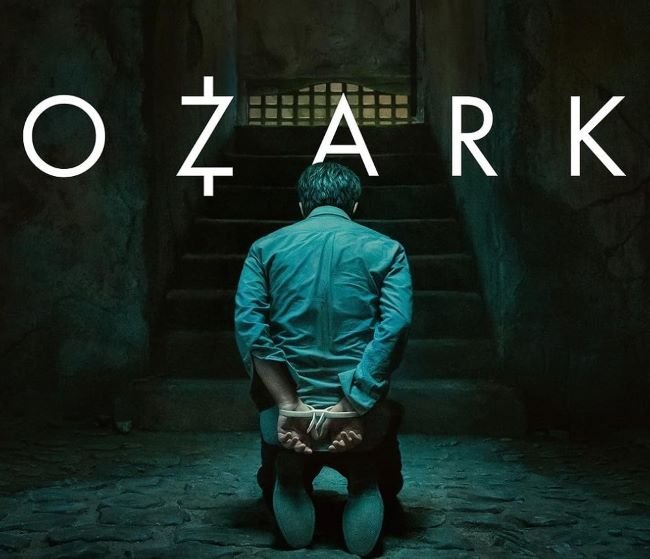
Ozark font uses Avenir Next — designed by Adrian Frutiger and Akira Kobayashi — and the Netflix series’ title design transforms this refined geometric font into something genuinely unsettling by embedding symbolic glyphs in place of certain letters: a crosshair, a money sign, and other subtle criminal iconography woven directly into the word OZARK, so that the title is simultaneously a place name and a crime scene. The underlying typeface’s clean, modernist proportions create a visual tension with these embedded symbols. Two alternatives approach this precise, symbol-laden register: Alternative 1 and Alternative 2.